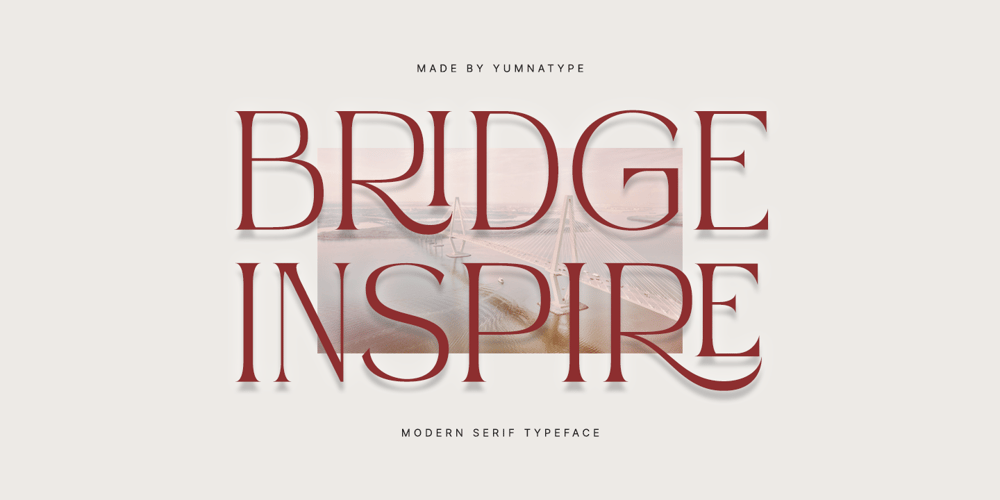
Bridge Inspire
Bridge Inspire font
Bridge Inspire Font Family was designed by Donis Miftahudin and published by Yumna Type. Bridge Inspire contains 1 styles and family package options. Bridge Inspire is a sleek and contemporary serif font that embodies sophistication and elegance. With its modern style and refined design, this font is perfect for projects seeking a minimalist yet impactful typographic statement. Each letter in Bridge Inspire is meticulously crafted with clean lines and precise serifs, exuding a sense of refinement and sophistication. On the other hand, the thin weight of the font adds a delicate touch. What sets Bridge Inspire apart is its visible letter contrast, which adds visual interest and depth to the text. This contrast enhances legibility and draws attention to key elements, ensuring that your message is conveyed with clarity and impact. In addition, enjoy the features here.Features: Stylistic Sets Multilingual Supports PUA Encoded Numerals and Punctuations Bridge Inspire fits in headlines, logos, posters, flyers, branding materials, print media, editorial layouts, and many more designs. Find out more ways to use this font by taking a look at the font preview.Thanks for purchasing our fonts. Hopefully, you have a great time using our font. Feel free to contact us anytime for further information or when you have trouble with the font. Thanks a lot and happy designing.